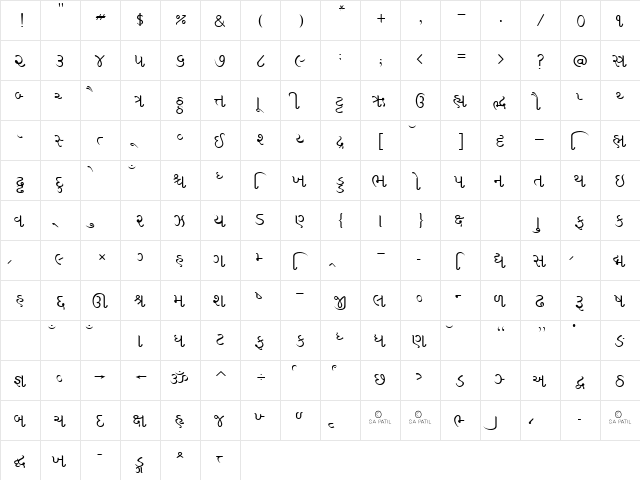
ItxGuj Regular
Design Context for ItxGuj Typeface
ItxGuj takes a measured approach to typography — its balanced proportions and neutral character make it a reliable workhorse for both digital and print work.